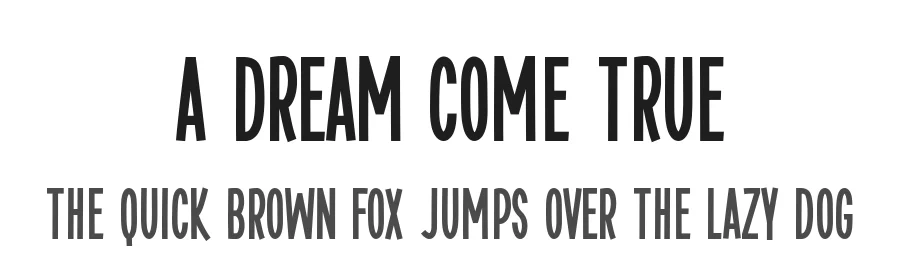
About Kvitka SP Font
Kvitka SP is a display font designed by Sasha Pavljenko, Kvitka Mykhailo, Kvitka (Pustovarova) Olha. It includes 132 glyphs, a regular weight, OTF (CFF) format, and 215 languages. Kvitka SP is free to download; check the license details on this page before commercial use. Display fonts like Kvitka SP work best for logos, posters, headlines, and eye-catching social media graphics.
Kvitka SP Font is a display font that shines as a display or heading face. Pair it with a clean sans-serif or serif font for body text โ the contrast creates a clear hierarchy while the two styles stay balanced and easy to read.
Kvitka SP Font
by Sasha Pavljenko, Kvitka Mykhailo, Kvitka (Pustovarova) Olha
Kvitka SP Font is a display typeface by Sasha Pavljenko, Kvitka Mykhailo, Kvitka (Pustovarova) Olha, ideal for logos, invitations, branding, and creative projects.